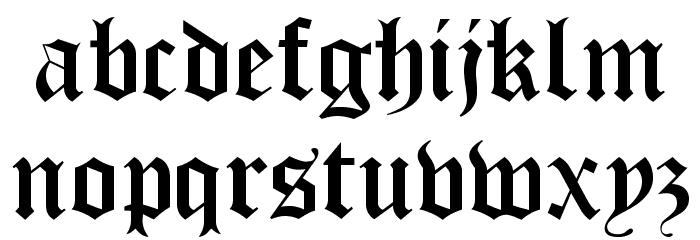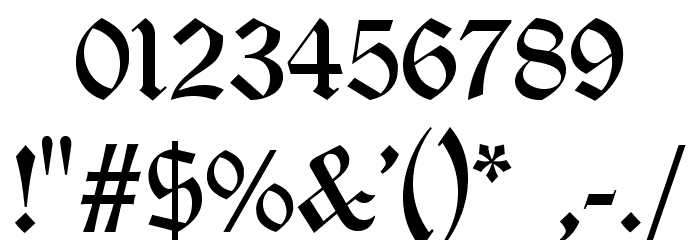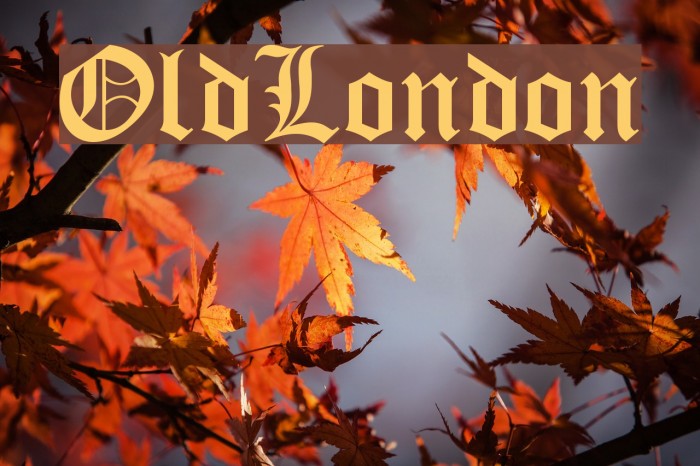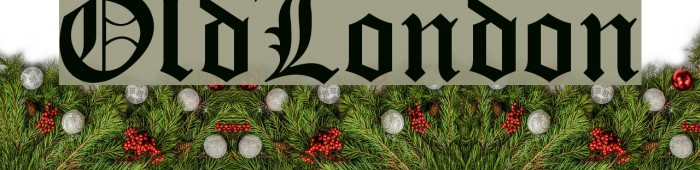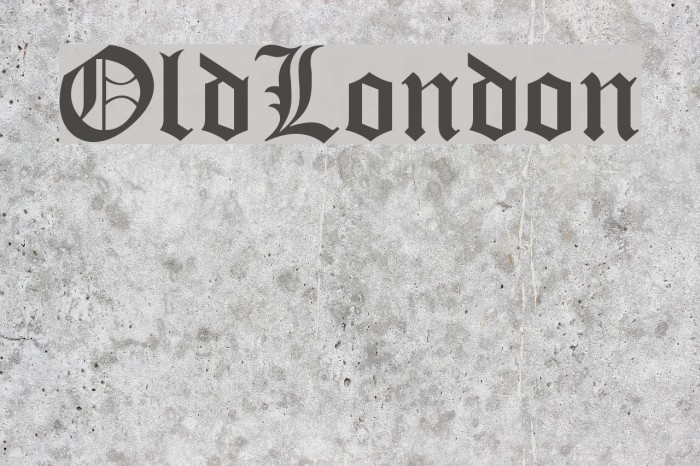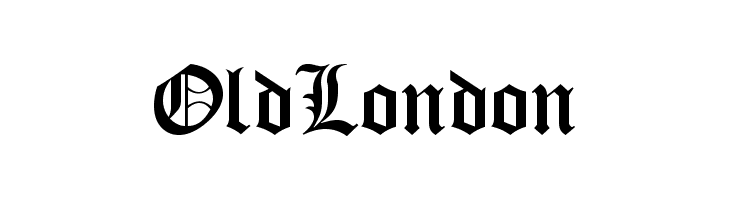
OldLondon Font
This font exudes a classic and historical charm, reminiscent of medieval manuscripts and traditional Gothic script. The characters are intricately designed with sharp, angular lines and decorative flourishes, giving it a distinct and ornate appearance. The uppercase letters are particularly elaborate, featuring bold strokes and pointed serifs that enhance its dramatic style. Lowercase letters maintain the same intricate detailing, ensuring consistency throughout the typeface. The numerals and special characters are equally stylized, making this font suitable for projects that require a touch of elegance and historical authenticity.
A decorative Gothic script with intricate, angular lines and ornate detailing.
- Proposed Projects: Ideal for historical documents, wedding invitations, book covers, and branding that requires a vintage or medieval aesthetic.
- Category: Blackletter
- Overall Style: Vintage
- Use Case: Logos, Headlines, Decorative text